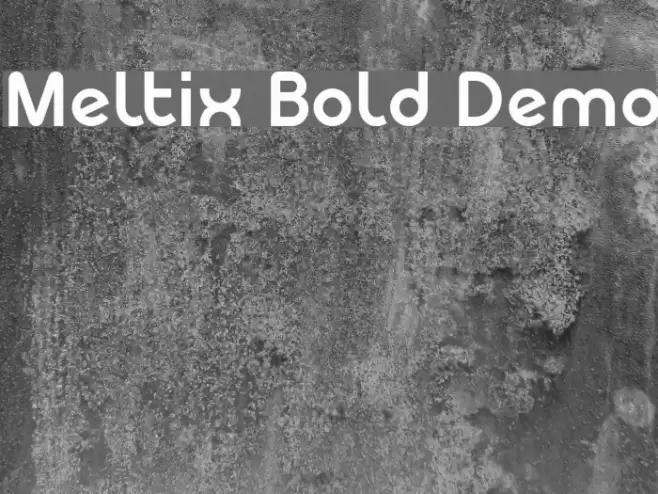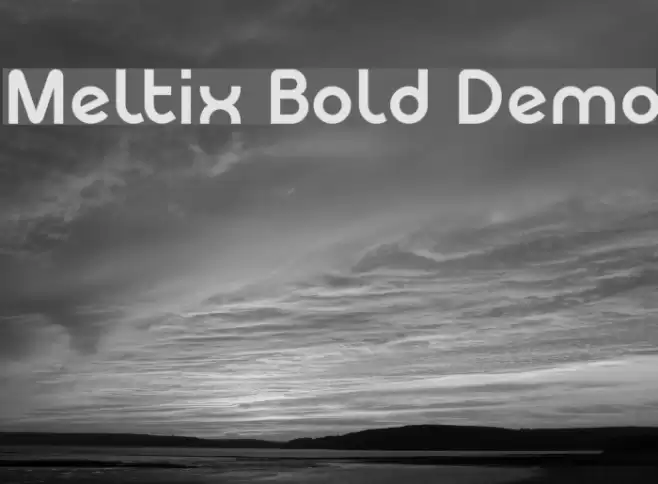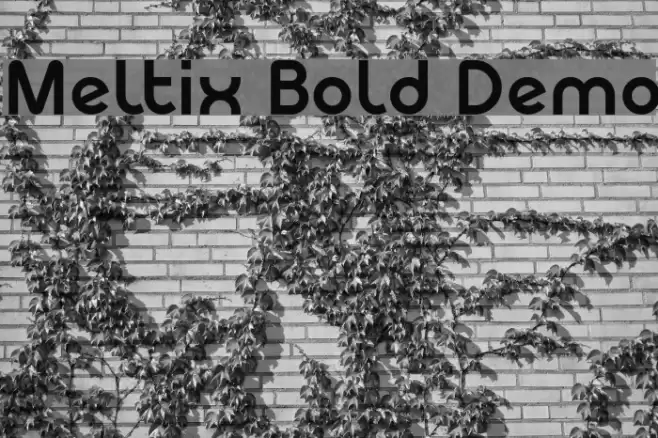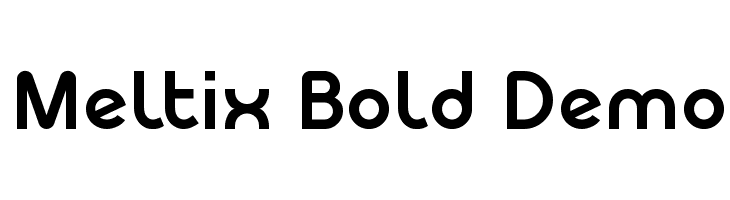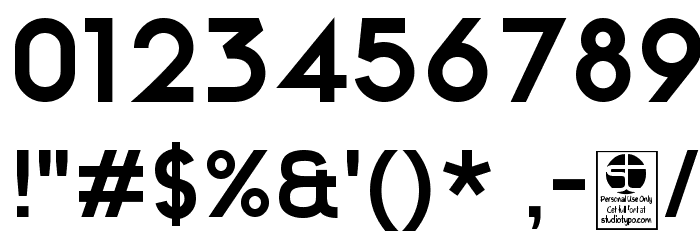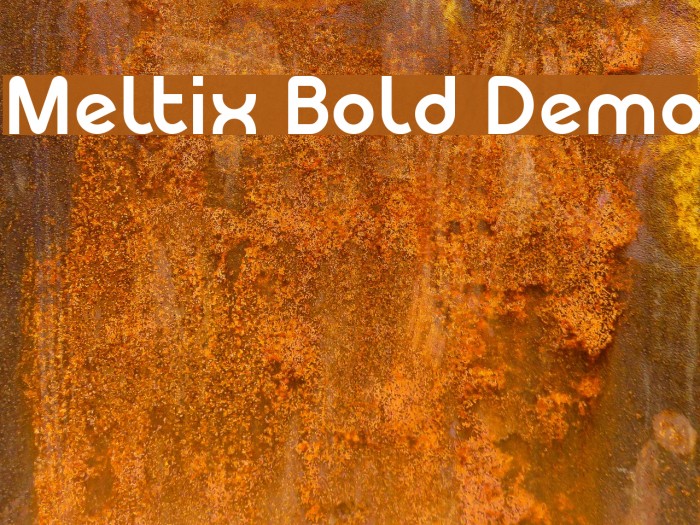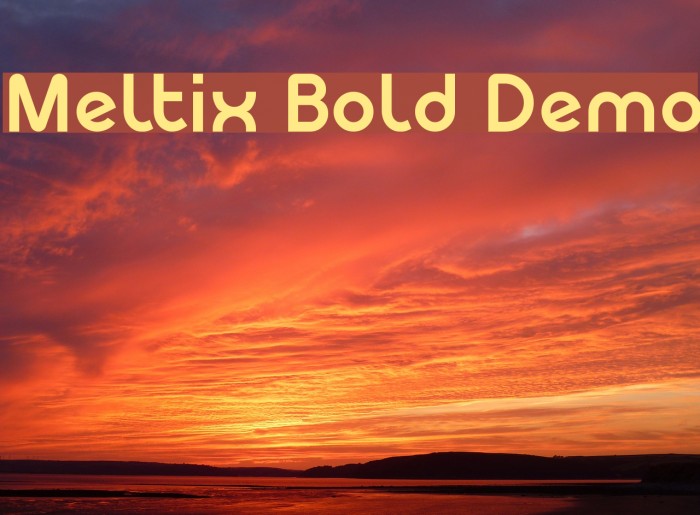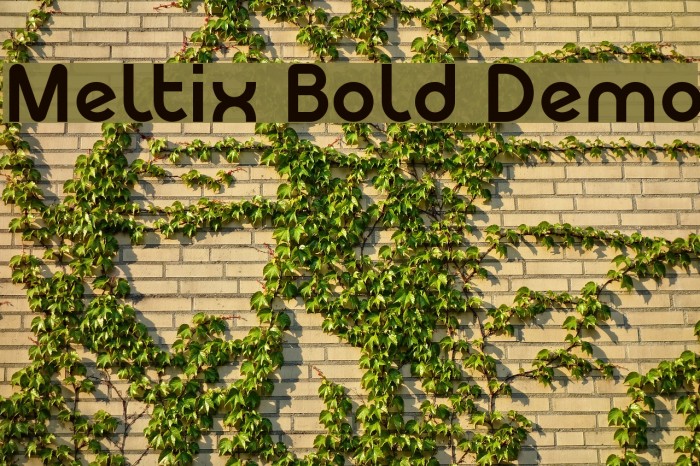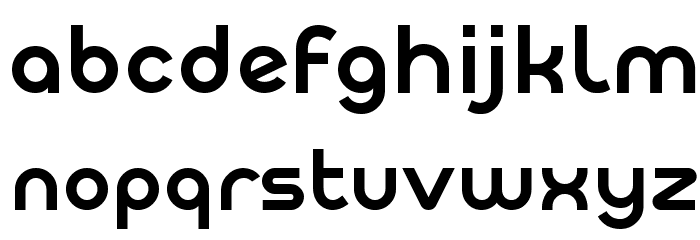
Meltix Bold Demo Font
Meltix Bold Demo Description
This font features a bold, modern design with clean lines and a geometric structure. The characters are well-defined, with a consistent stroke width that gives it a strong presence. The uppercase letters are slightly wider, providing a balanced look, while the lowercase letters maintain a uniform height, enhancing readability. The numerals are distinct and easily distinguishable, making them suitable for various applications. Special characters are included, offering versatility for different design needs. Overall, this font exudes a contemporary and professional feel, ideal for making a bold statement.
A bold, modern font with clean lines and geometric structure from Uncategorized fonts.
- Proposed Projects: Ideal for branding, advertising, headlines, and digital media projects.
- Use Case: Headlines, Logos, Branding